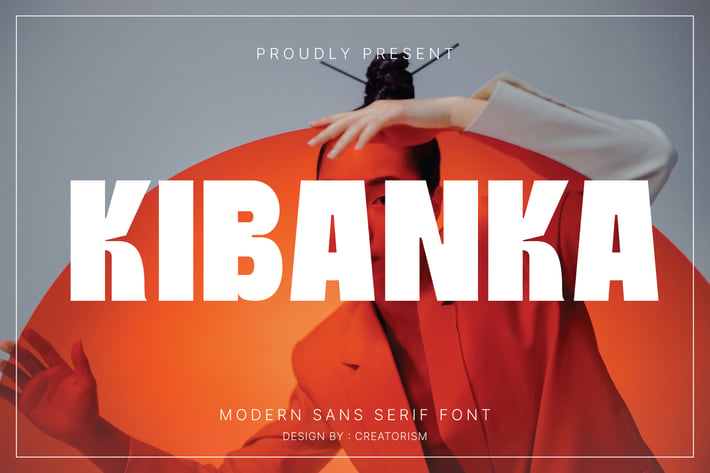
Kibanka - Modern Sans Serif Font
Kibanka Modern Sans Serif Font is a bold and powerful font that is here to make a statement. Inspired by modern designs from the 2000s, Kibanka returns to present an iconic feel with a fresh touch. This font is your top choice for creating stunning posters, captivating website titles, and sleek interface designs.
The Kibanka typeface has a strong presence and is perfect for its display size, making it a perfect candidate for a memorable logo design with a contemporary sans serif design. Kibanka's Sans Serif font will ensure your designs can be easily communicated to a global audience.